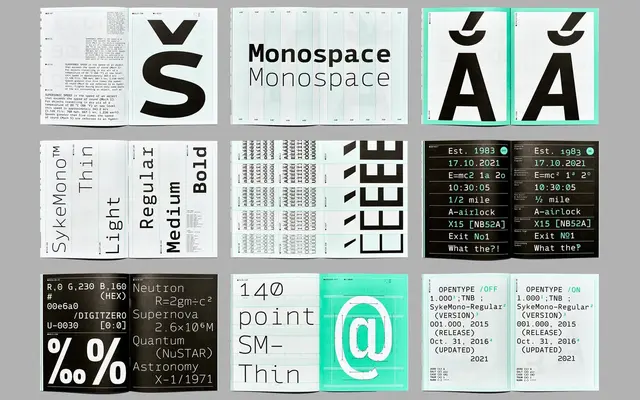
Syke Mono
The Northern Block · 2016
A monospaced companion to the Syke family, designed for coding and screen interfaces across five weights with true italics.
Derived from the proportional Syke typeface, Syke Mono adapts its forms into fixed-width spacing with careful attention to characters that affect alignment and readability, including alternative versions of lowercase a, i, l and r. Each of the ten styles covers over 590 characters, with five variations of numerals, manually edited kerning and OpenType features. Initially released in 2016 and updated in 2021, it suits coding environments, database applications and ebook platforms.
A purpose-built monospaced companion to the Syke sans-serif family, with fixed-width spacing and features tailored for coding and screen interfaces.